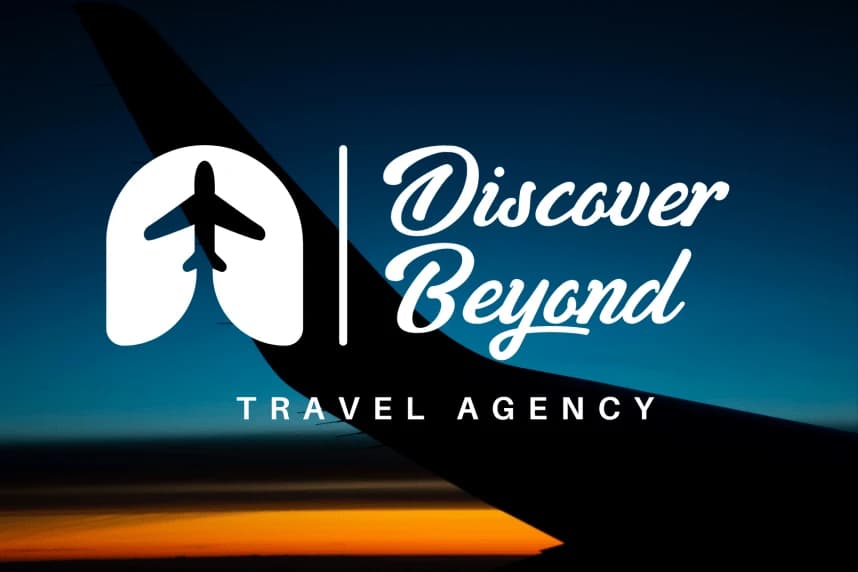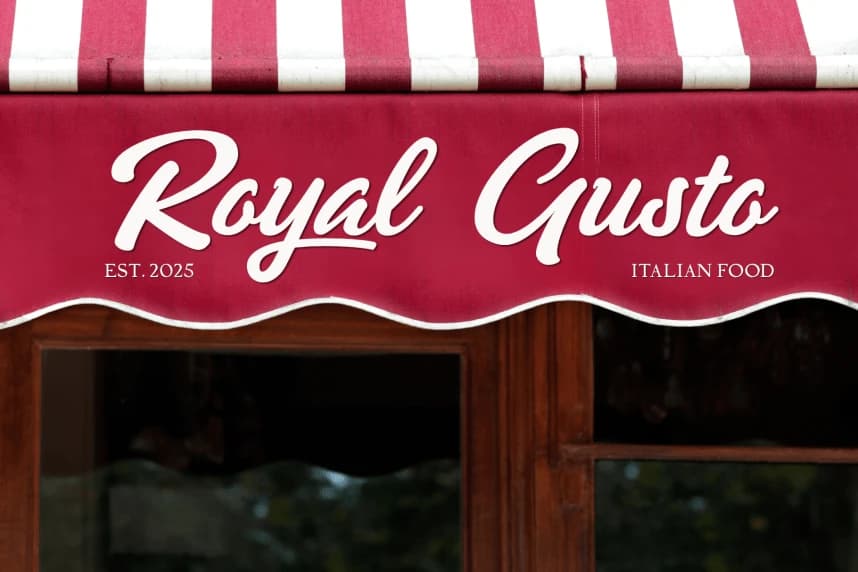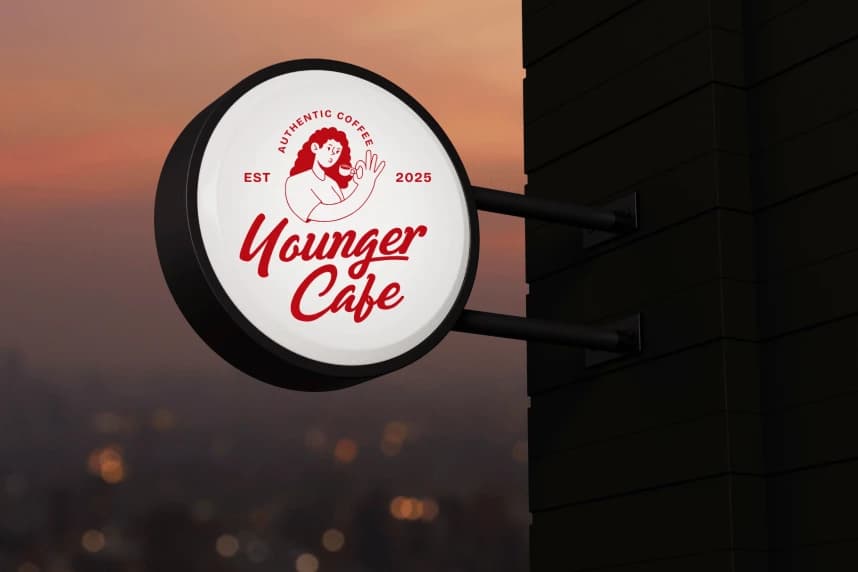
Himalayan – Bold Script Font
Introducing Himalayan – Bold Script Font, a bold and expressive script font designed to elevate your creative projects. With its strong strokes and